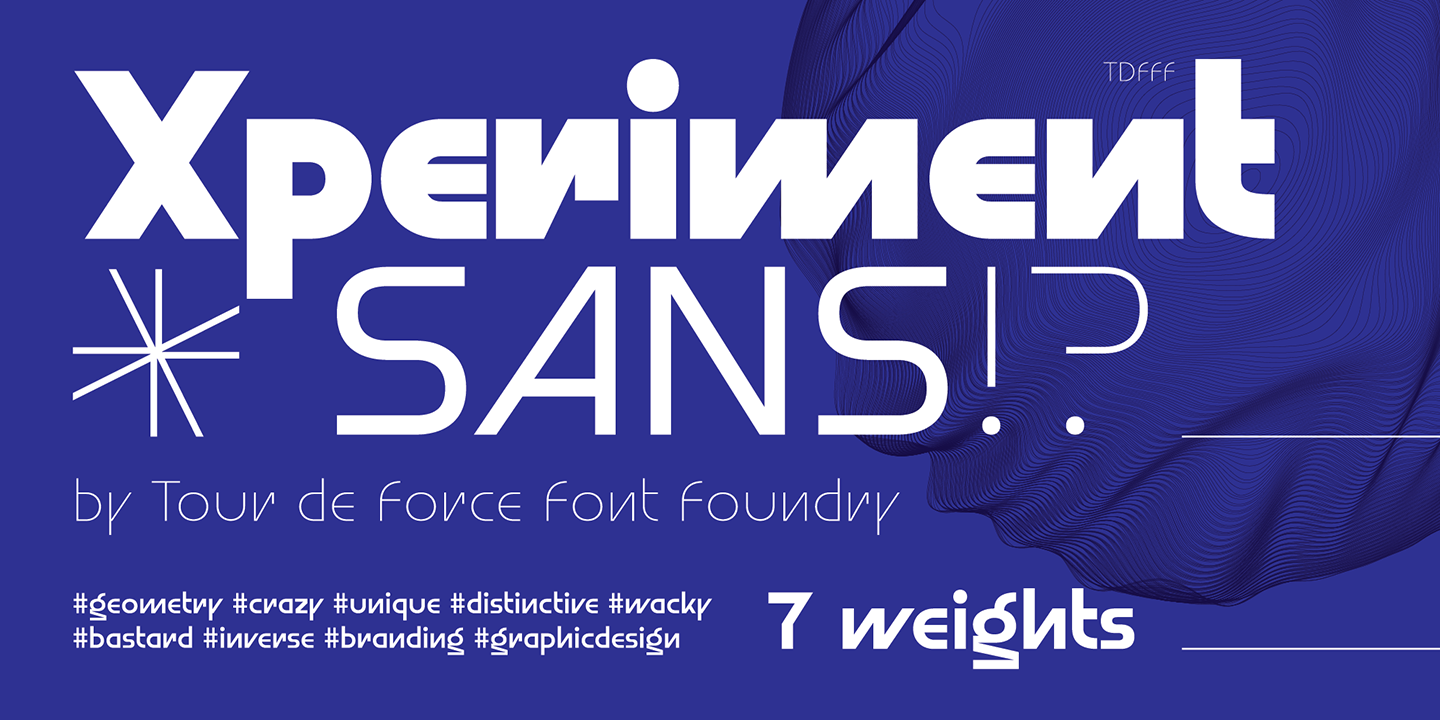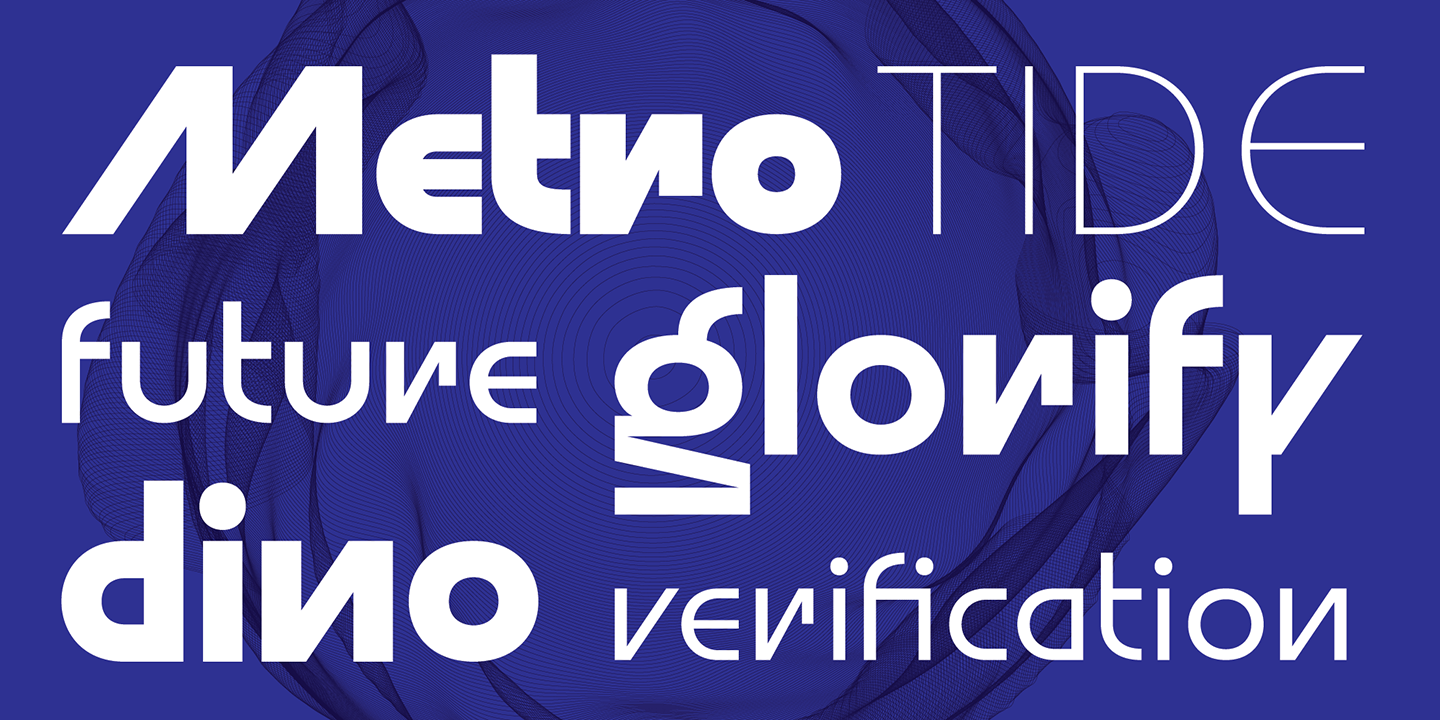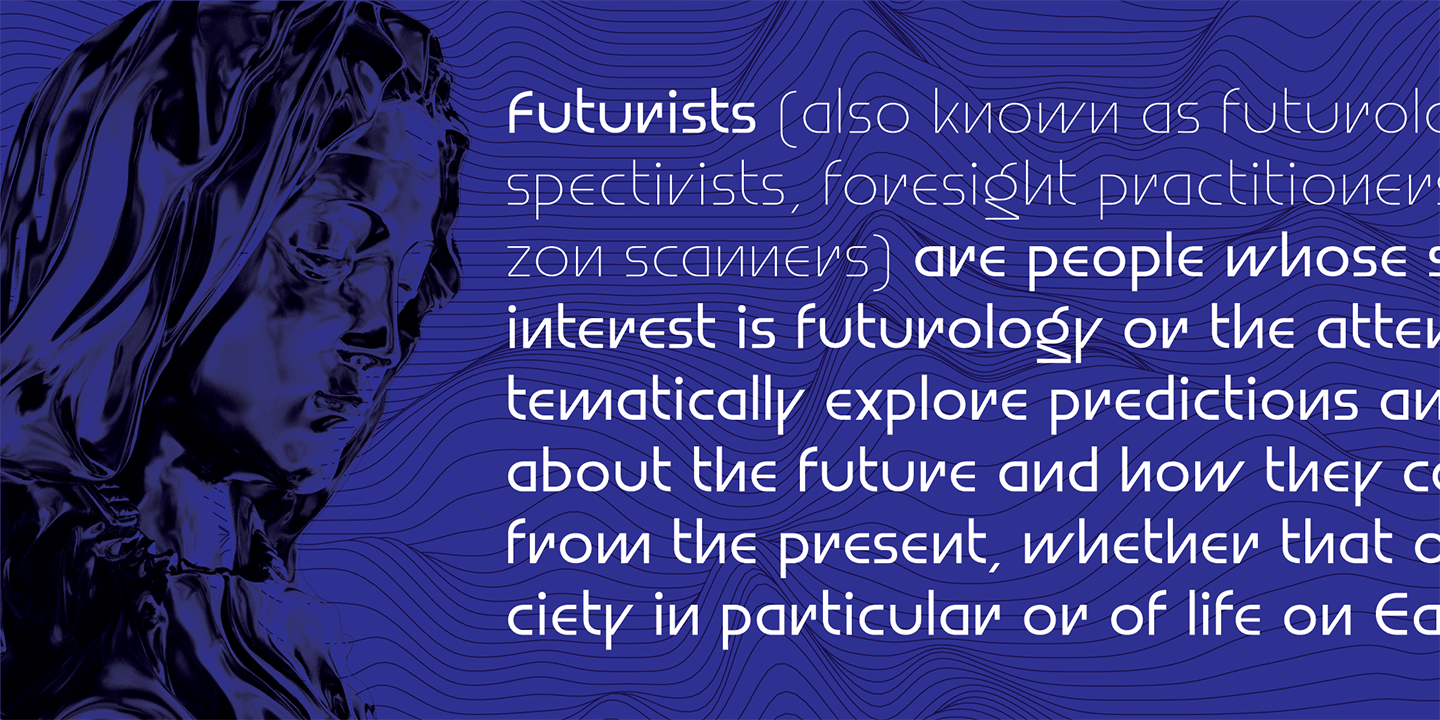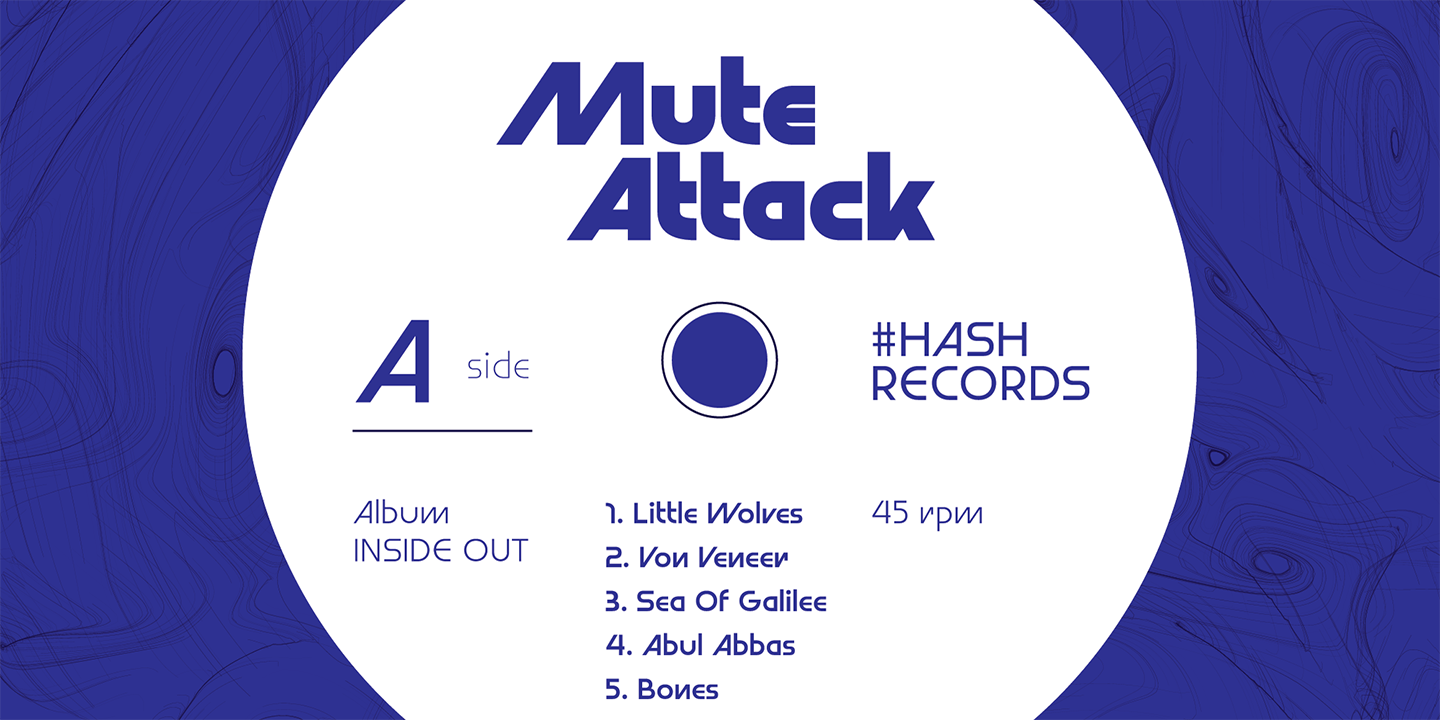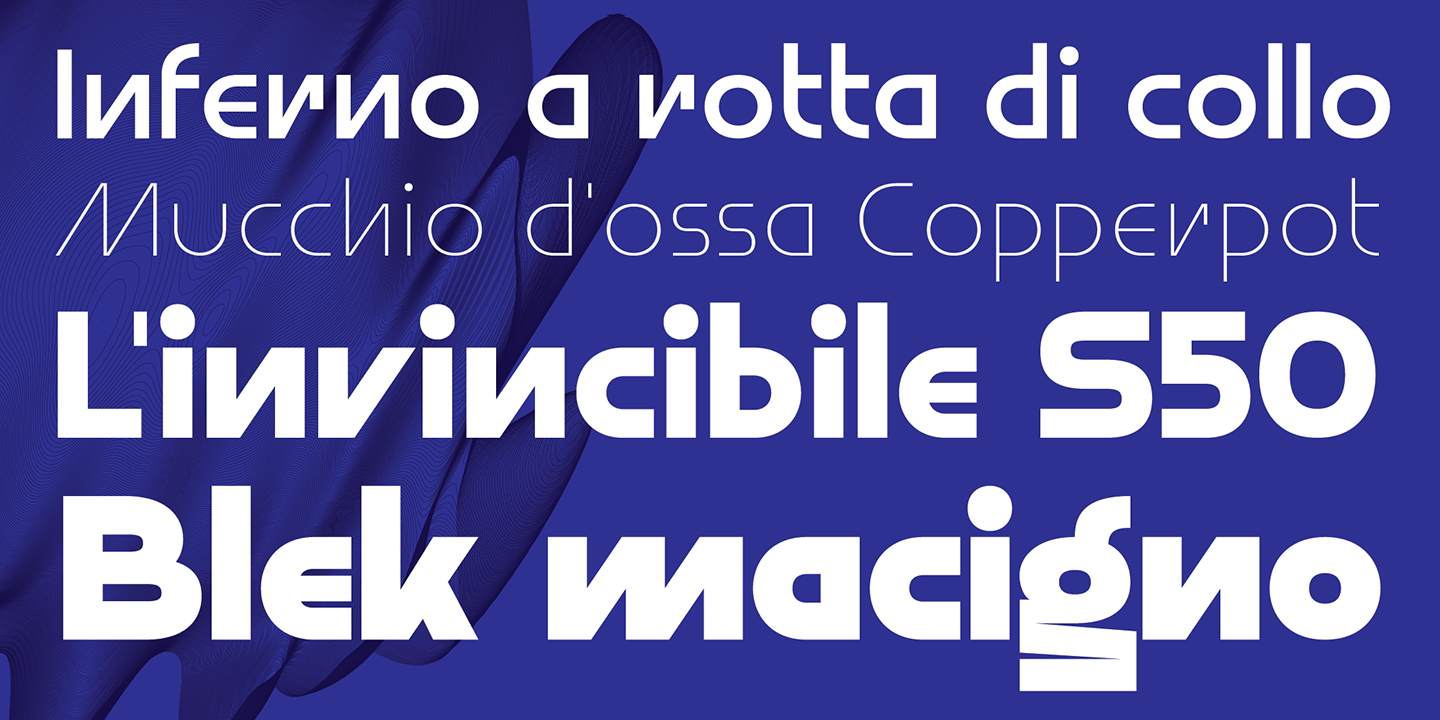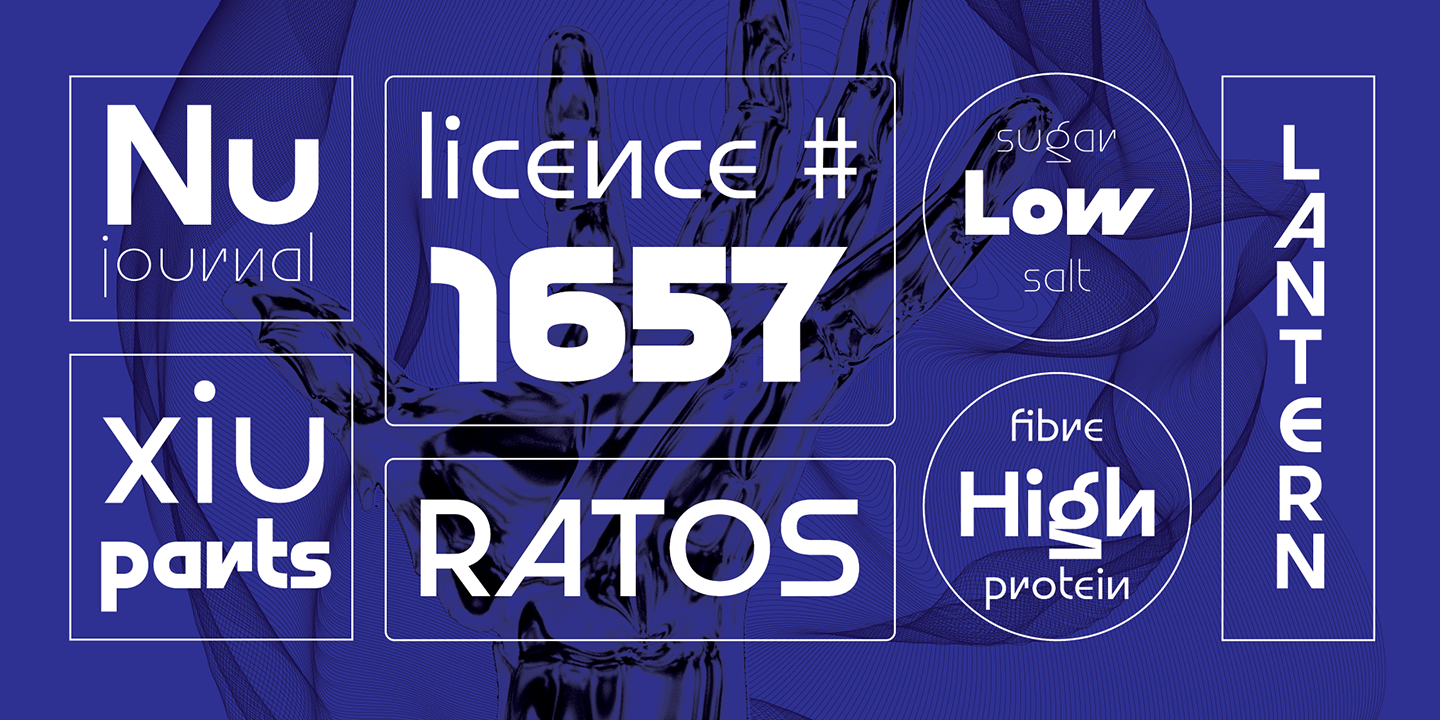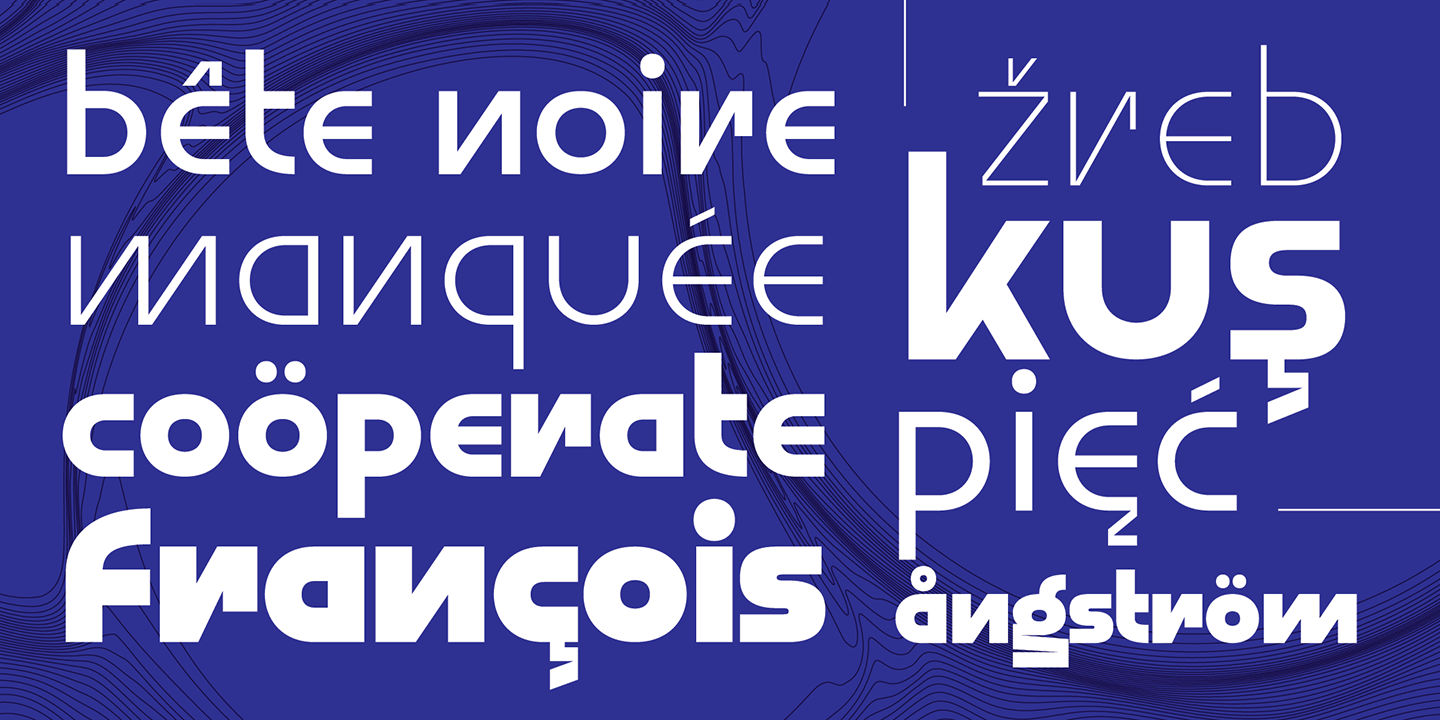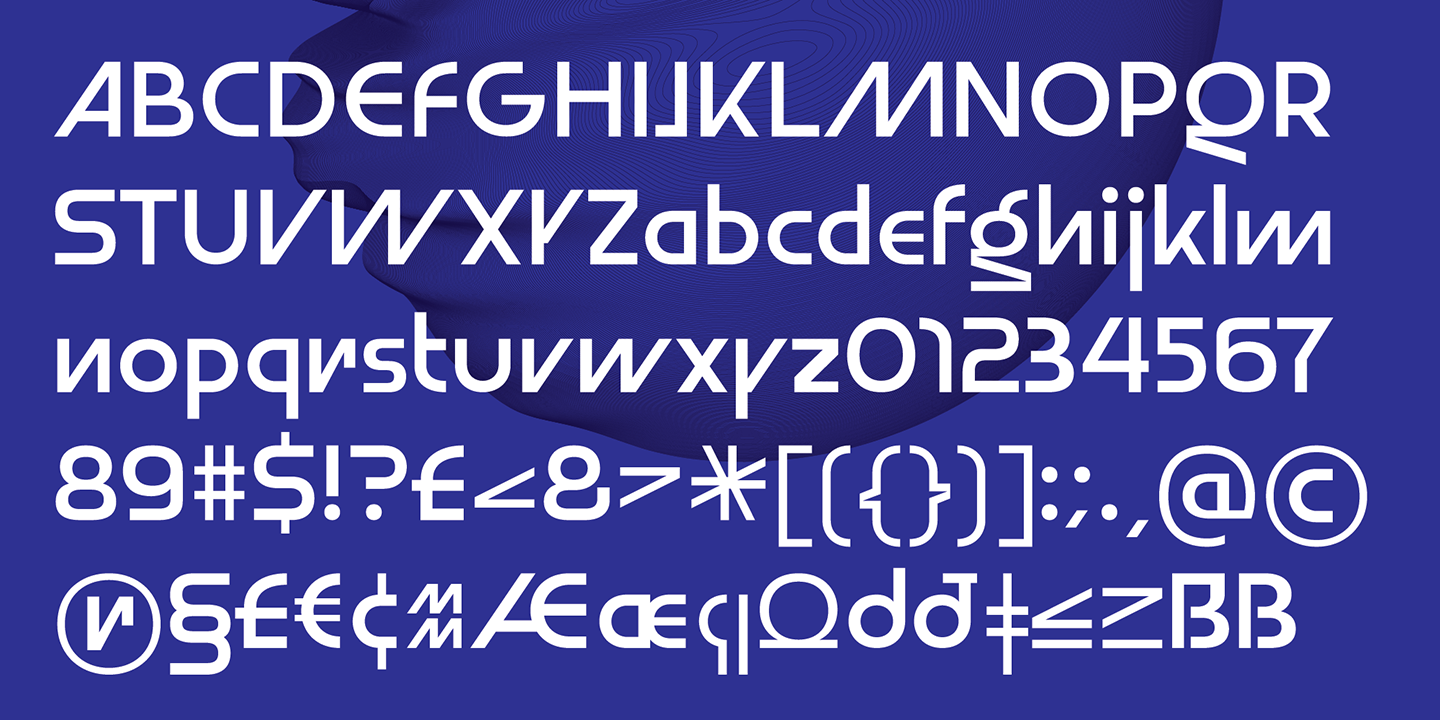
Xperiment Sans is modern sans serif font family with eccentric design. Available in 7 weights, Xperiment Sans is unique and distinctive font family with solid visual character.
Specific by it's geometry and atypical combination of stem positions and letter shapes, Xperiment Sans is basically very simple by design. It's ideal for modern and unconventional projects where you're not looking for conservative approach. Modern IT companies, electro types of music, sci fi movies, contemporary package design or if you are simply looking to be different, Xperiment Sans will work perfect in the most of situations.
Contains standard ligatures in extended Latin character map. Read interview about Xperiment Sans Font Family at Identifont.com.